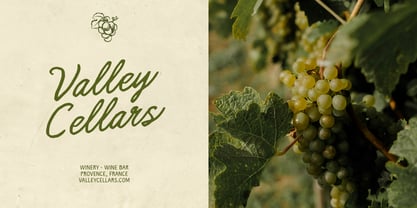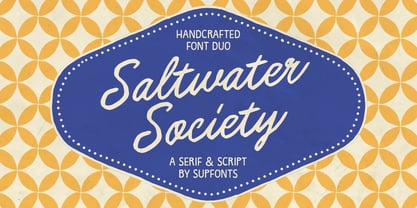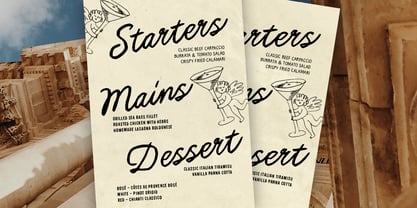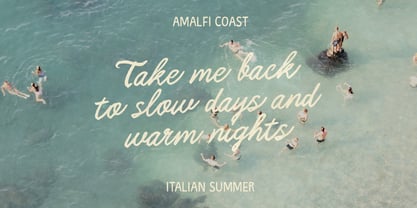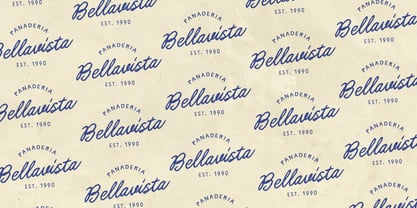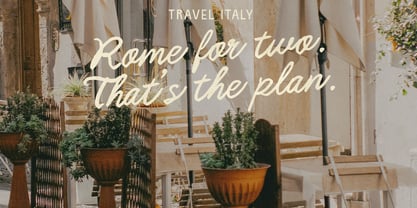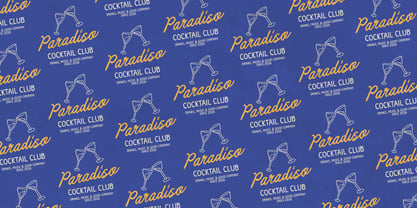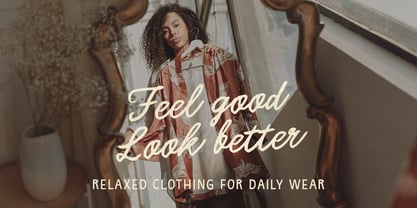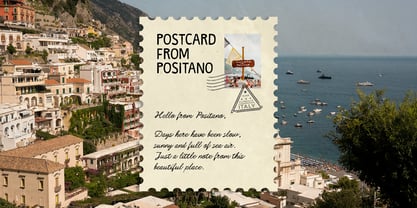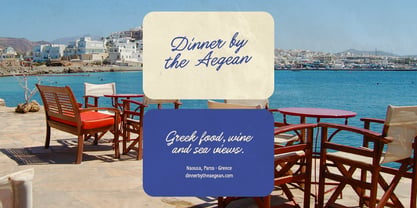
The Saltwater Society
La familia tipográfica The Saltwater Society fue diseñada por Dmitrii Chirkov y publicada por Supfonts. The Saltwater Society contiene 2 estilos y opciones de paquete familiar. Más información sobre esta familia
Meet Saltwater Society a relaxed font duo with a nostalgic, sun-faded character.
Inspired by vintage beach clubs, old restaurant menus, travel postcards, hand-painted signs and retro packaging, Saltwater Society combines an expressive handwritten script with a clean condensed sans serif. The script adds movement and personality, while the sans keeps layouts balanced, simple and easy to read.
The result feels vintage without looking dated perfect for branding, packaging, menus, invitations, travel graphics, posters, editorial layouts, apparel and social media.
* Saltwater Society Script
* Saltwater Society Sans
Perfect for coastal brands, restaurants, bars, wineries, weddings, resorts and retro-inspired lifestyle projects.